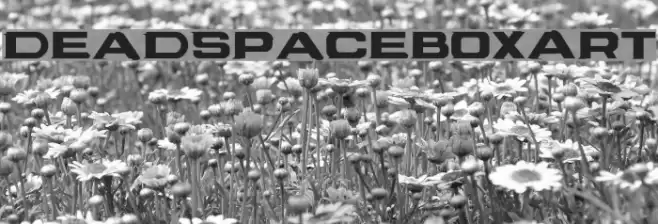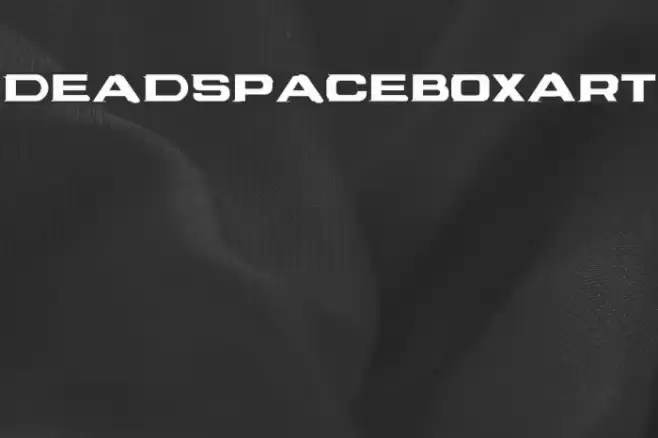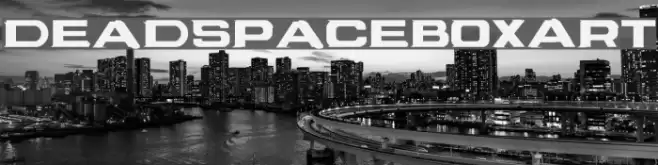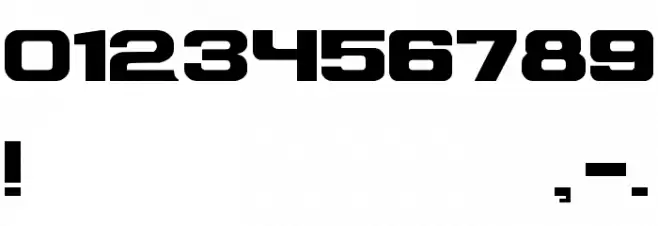
DeadSpaceBoxArt Font
DeadSpaceBoxArt Description
This font features a bold, futuristic design with angular edges and a strong presence. The characters are wide and have a distinct geometric style, making them stand out prominently. The uppercase letters are consistent in height, while the numbers maintain the same boldness and angular design. The special characters are minimalistic yet align with the overall futuristic theme. This font is ideal for projects that require a modern and impactful look, such as video game titles or sci-fi themed designs.
A bold, futuristic font with angular, geometric characters from Uncategorized fonts.
- Proposed Projects: Ideal for video game titles, sci-fi themed posters, and technology branding.
- Width: Expanded
- Overall Style: Futuristic